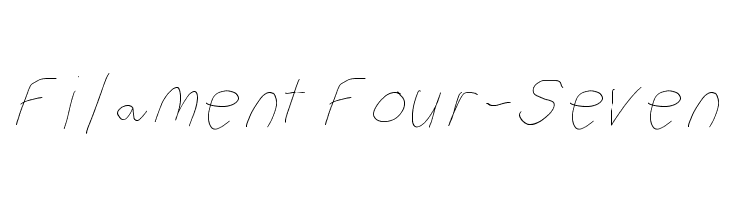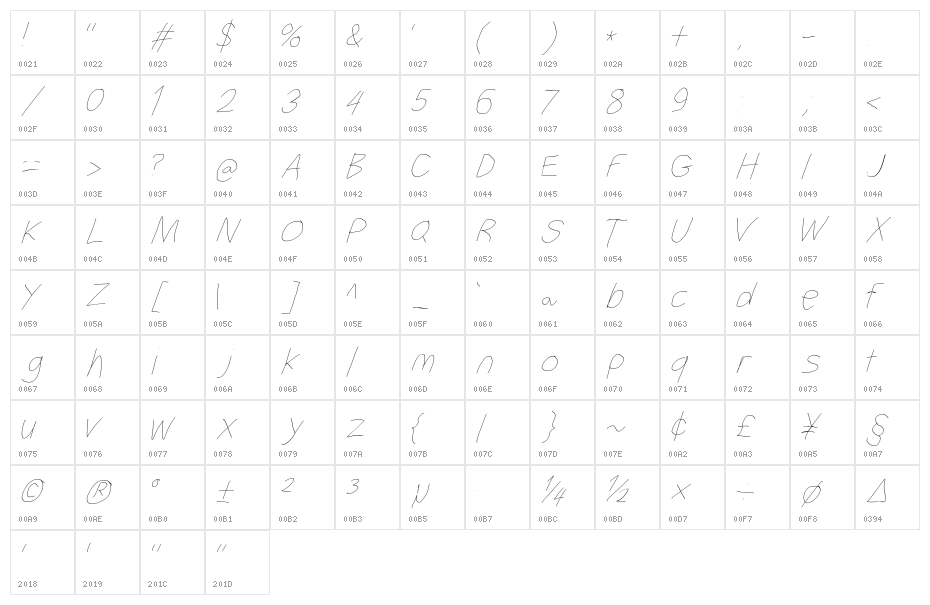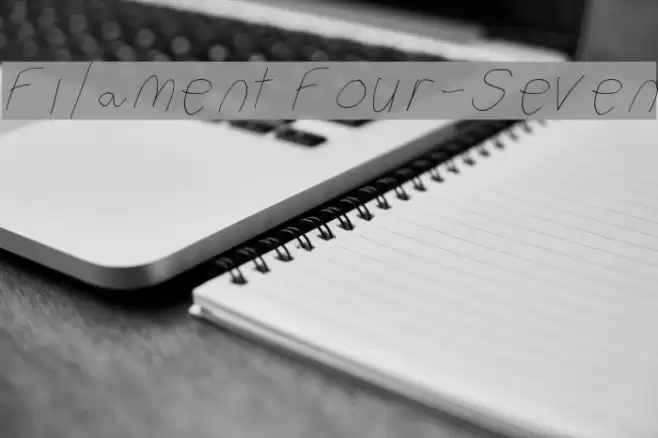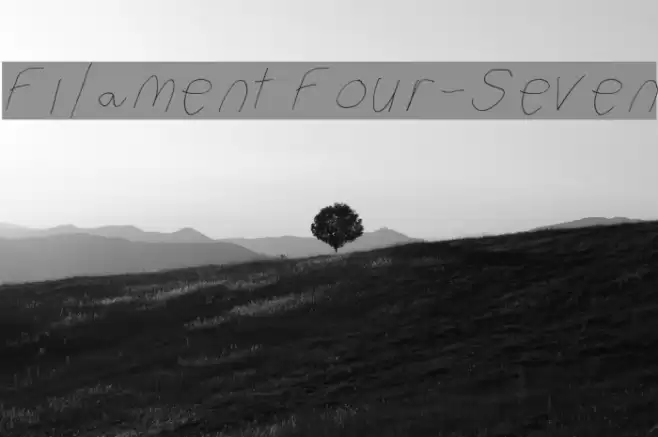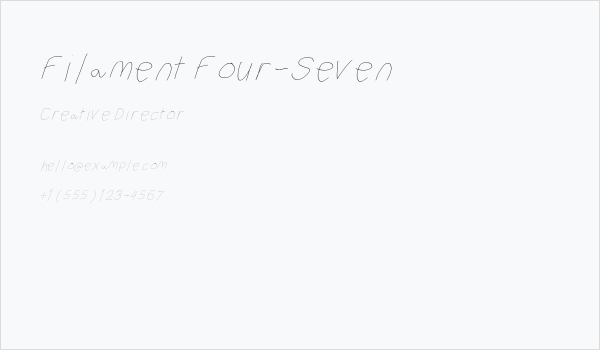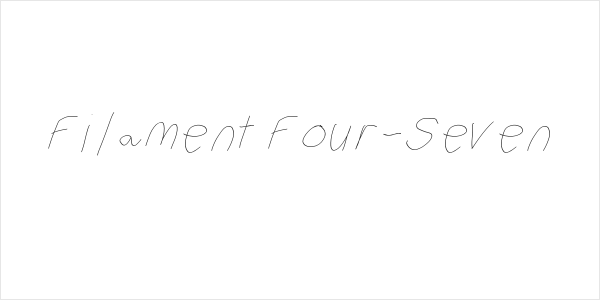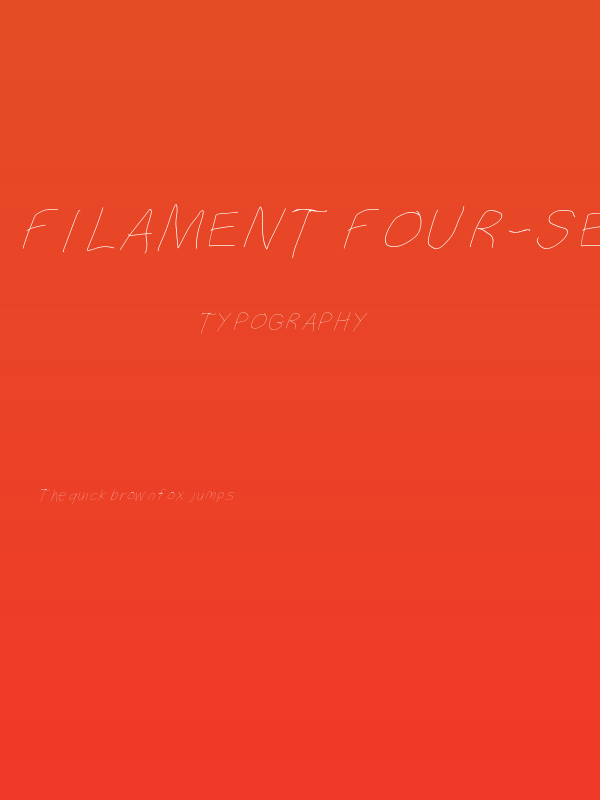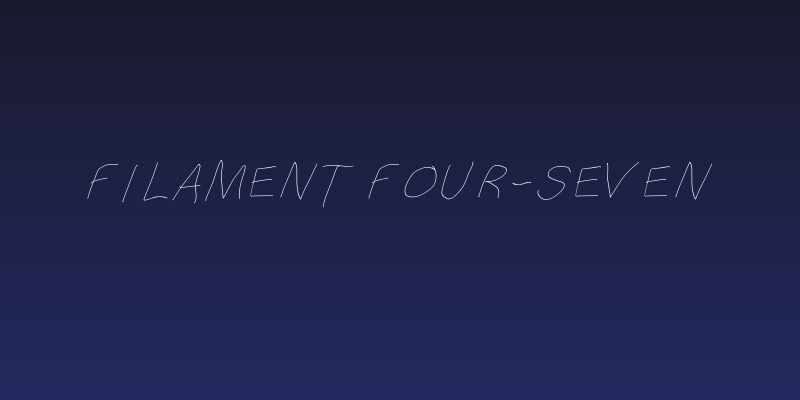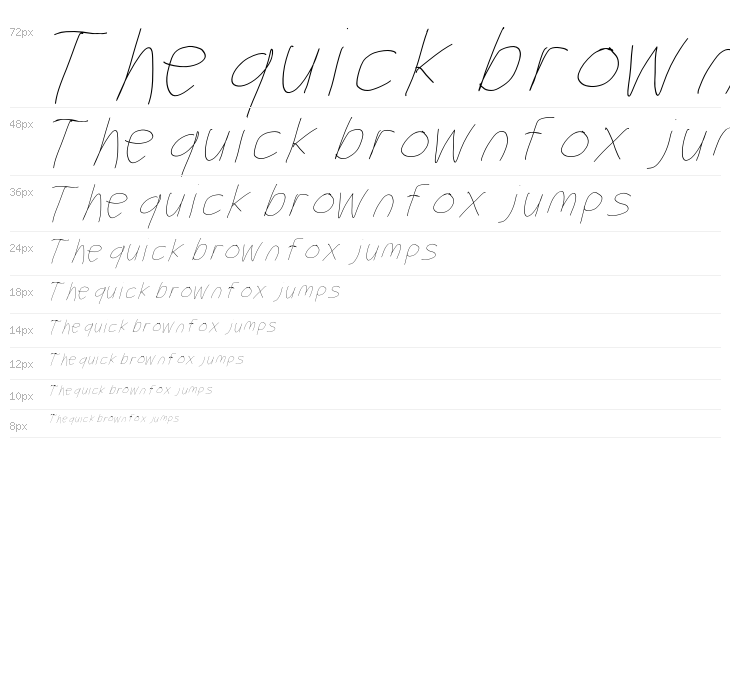
Filament Four-Seven Font
Filament Four-Seven Description
This font features a delicate, hand-drawn style with thin, flowing lines that give it an airy and light appearance. The characters are slightly slanted, resembling a casual handwritten script. The uppercase and lowercase letters maintain a consistent style, with smooth curves and minimal embellishments. The numbers and special characters follow the same aesthetic, ensuring a cohesive look across all glyphs. This font exudes a sense of elegance and simplicity, making it suitable for projects that require a personal touch.
| Overall Style | Elegant, Casual |
| Use Case | Invitations, Personal letters, Greeting cards |
| Proposed Projects | Ideal for wedding invitations, personal letters, greeting cards, and branding materials that require a personal and elegant touch. |